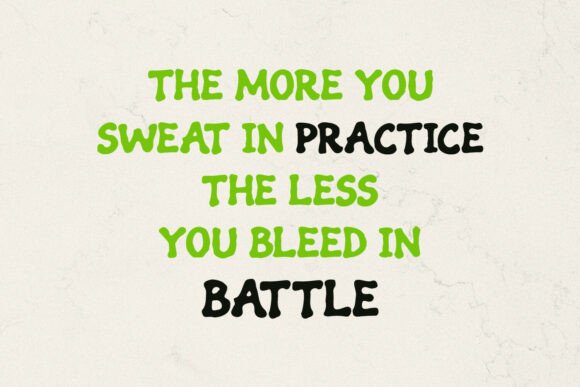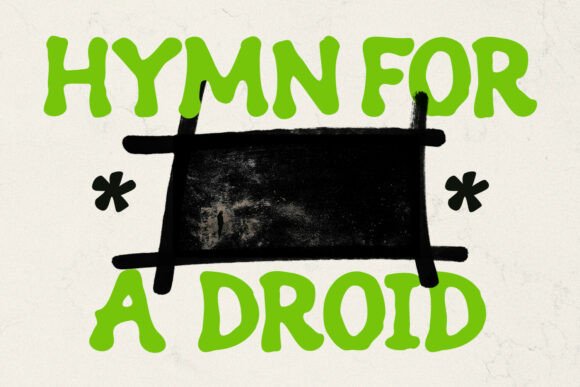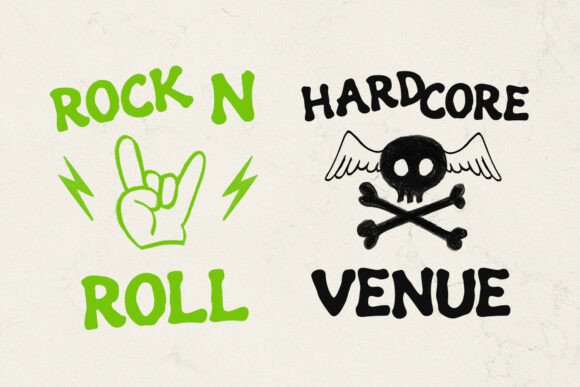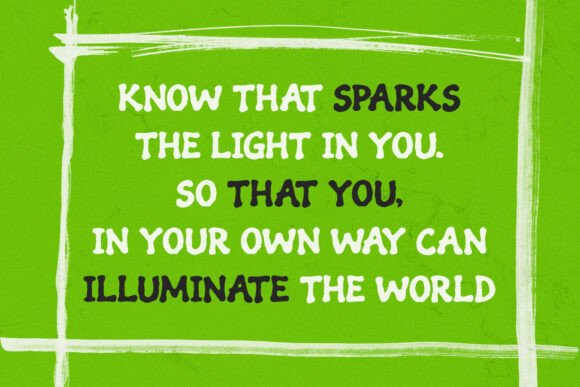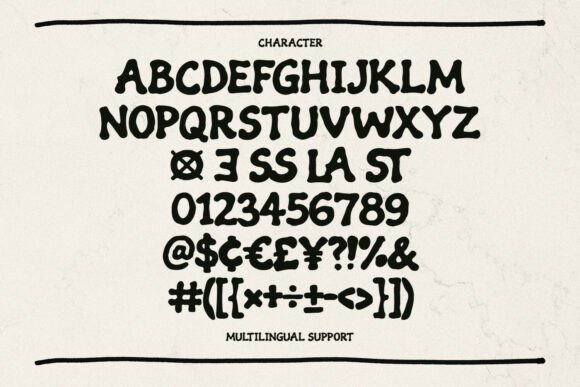
Biswom Font: Unleash Your Creativity with a Vibrant and Energetic Display Font
In the world of typography, fonts play a crucial role in conveying the tone and personality of a brand or creative project. If you’re looking for a font that exudes a sense of rebellion, playfulness, and creativity, look no further than Biswom. This stunning display font combines retro psychedelic vibes with a modern, energetic twist, making it perfect for designers and crafters who want to add a touch of uniqueness to their work.
The Inspiration Behind Biswom
Biswom is a font that draws inspiration from the psychedelic and retro art movements of the 1960s and 1970s. Its organic, fluid shapes and bold, hand-drawn weights evoke a sense of rhythmic movement, reminiscent of the era’s iconic rock posters and album covers. However, Biswom is not just a nostalgic nod to the past; it’s a modern take on classic design, with a playful twist that makes it perfect for contemporary branding, streetwear apparel, and creative projects.
Key Features of Biswom
So, what makes Biswom stand out from other fonts? Here are some of its key features:
- Organic and fluid shapes: Biswom’s unique shapes are inspired by hand-drawn lettering and have a natural, effortless feel to them.
- Bold and hand-drawn weights: The font’s bold weights are perfect for creating eye-catching headlines and titles that demand attention.
- Unique ligatures: Biswom features a range of unique ligatures that add an extra layer of creativity and personality to your text.
- Multilingual support: This font supports multiple languages, making it a versatile choice for designers and crafters who work with international clients or want to create content for a global audience.
Perfect for Expressive Branding and Creative Projects
Biswom is more than just a font – it’s a statement piece. Its bold, playful, and rebellious personality makes it perfect for:
- Expressive branding: Biswom is ideal for brands that want to stand out from the crowd and convey a sense of energy, creativity, and playfulness.
- Rock posters and music-related projects: The font’s retro psychedelic vibes make it a natural fit for rock posters, album covers, and other music-related projects.
- Streetwear apparel: Biswom’s bold and playful personality makes it perfect for streetwear apparel, from t-shirts to hats and bags.
- Creative projects: Whether you’re working on a personal project or a client’s brief, Biswom is a great choice for any creative project that needs a touch of rebellious personality.
Tips for Using Biswom Effectively
To get the most out of Biswom, here are some tips for using it effectively:
- Experiment with different weights: Biswom’s bold weights are perfect for headlines, while its lighter weights are great for body text.
- Play with ligatures: Biswom’s unique ligatures can add an extra layer of creativity and personality to your text.
- Use it with contrasting fonts: Pair Biswom with a contrasting font to create visual interest and add depth to your design.
Biswom is a vibrant and energetic display font that’s perfect for designers and crafters who want to add a touch of rebellious personality to their work. With its unique blend of retro psychedelic vibes and modern playfulness, Biswom is a versatile font that’s sure to inspire creativity and make your projects stand out. So why settle for a boring, generic font when you can unleash your creativity with Biswom?